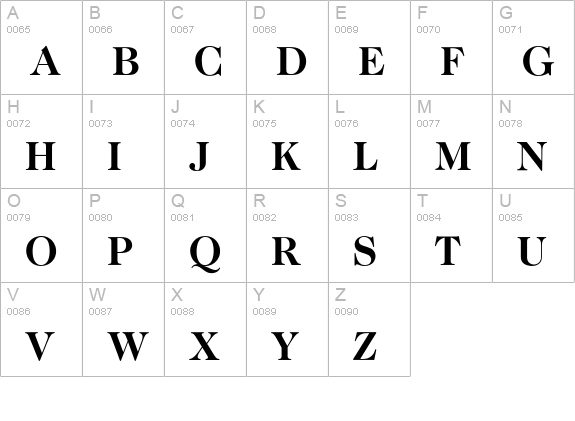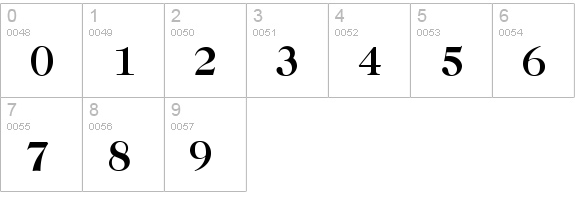
Caslon 224* Bold Font Details
Caslon 224* Bold is a strong, high-contrast variant in the Caslon typeface family \xE2\x80\x94 well suited to headlines, attention-grabbing titles, and strong calls-to-action.
Caslon 224* Bold is a timeless and classic font that exudes elegance and sophistication. Its bold weight commands attention and adds a touch of flair to any design project. Perfect for headlines, titles, and bold statements, this font offers a perfect balance between tradition and modernity. Caslon 224* Bold is a versatile typeface that can be used across a wide range of applications, from editorial design to branding and packaging. Its strong presence on the page ensures that your message will be conveyed with impact and style. With its clean lines and distinct serifs, Caslon 224* Bold is a must-have for any designer looking to make a statement. The best part? Caslon 224* Bold is available for free download at FontsMarket.com. Whether you're a seasoned designer or just starting out, this font is a valuable addition to your toolkit. Download Caslon 224* Bold today and elevate your designs to the next level.